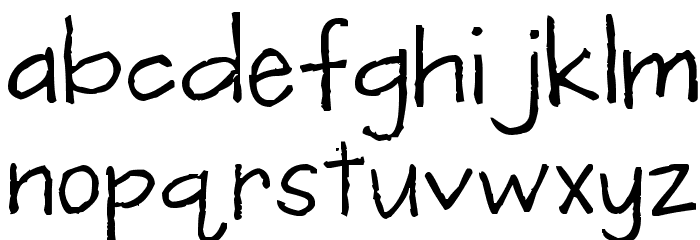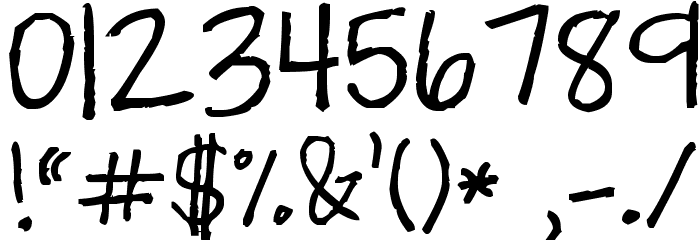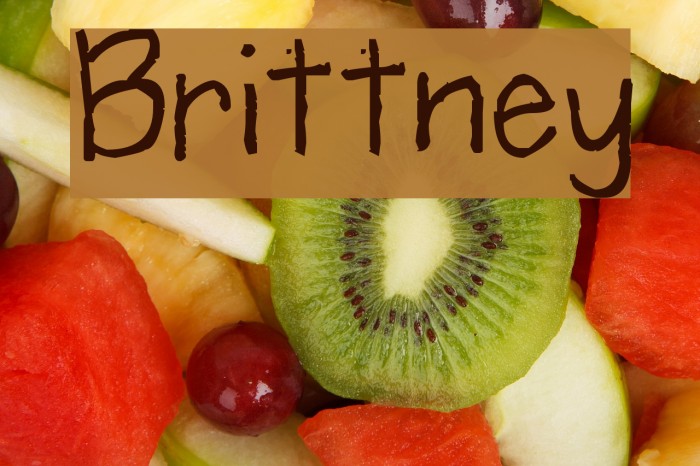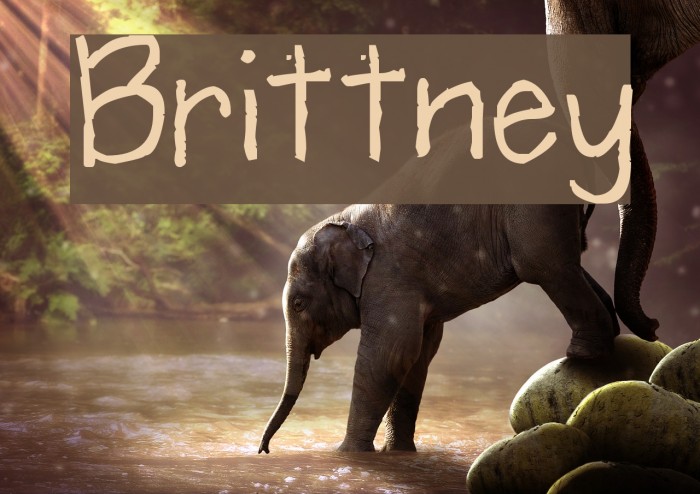
Brittney Font
This font exhibits a playful and informal handwritten style, characterized by its irregular strokes and casual appearance. The letters are slightly uneven, giving it a natural and authentic feel, reminiscent of a personal note or sketch. The uppercase and lowercase letters maintain a consistent style, with rounded edges and a slight tilt, adding to its approachable and friendly demeanor. The numerals and special characters follow the same informal aesthetic, ensuring a cohesive look across all text elements. This font's charm lies in its simplicity and the organic flow of its characters, making it suitable for projects that require a personal touch.
A playful, informal handwritten font with irregular strokes and a casual appearance.
- Proposed Projects: Ideal for greeting cards, personal blogs, children's books, and casual branding projects.
- Category: Handwritten
- Overall Style: Casual
- Use Case: Greeting cards, Personal notes, Informal branding